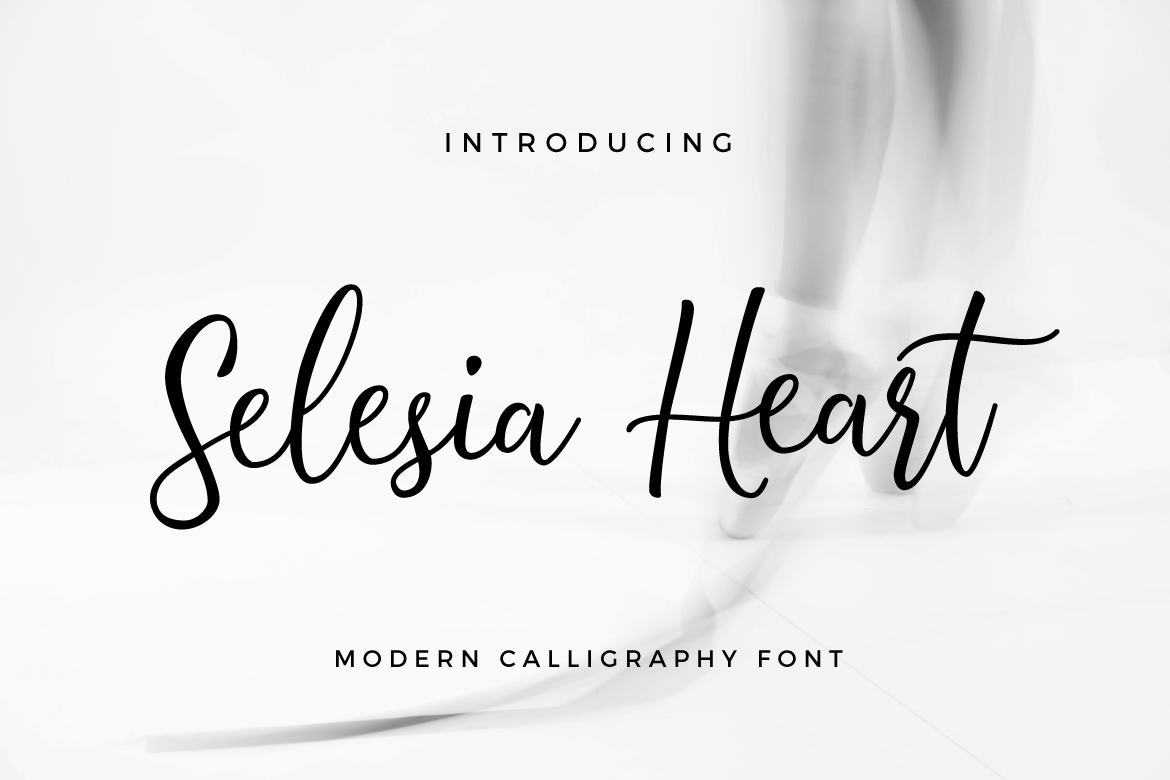
Selesia Heart is a casual calligraphy font. Selesia Heart font is suitable for any design needs, modern invitation design, branding, blog design, modern advertising design, invitation, Art Quote, Home decor, Book/Cover Title, Invitation, special events, birthday, custom mug, pillow, t-shirts, any calligraphy style needs and more.Thank you for your purchase! and hope you're having fun with Selesia Heart ! Happy creating! Typia Nesia Studio